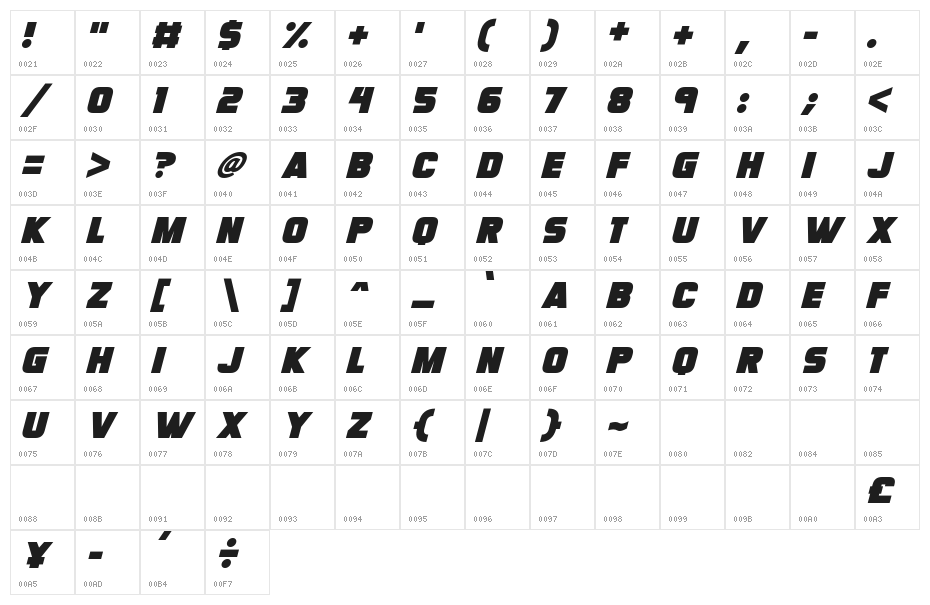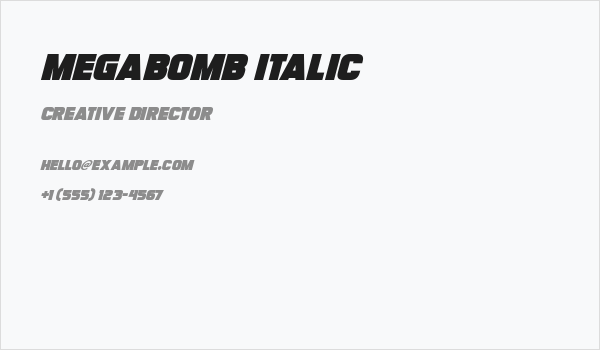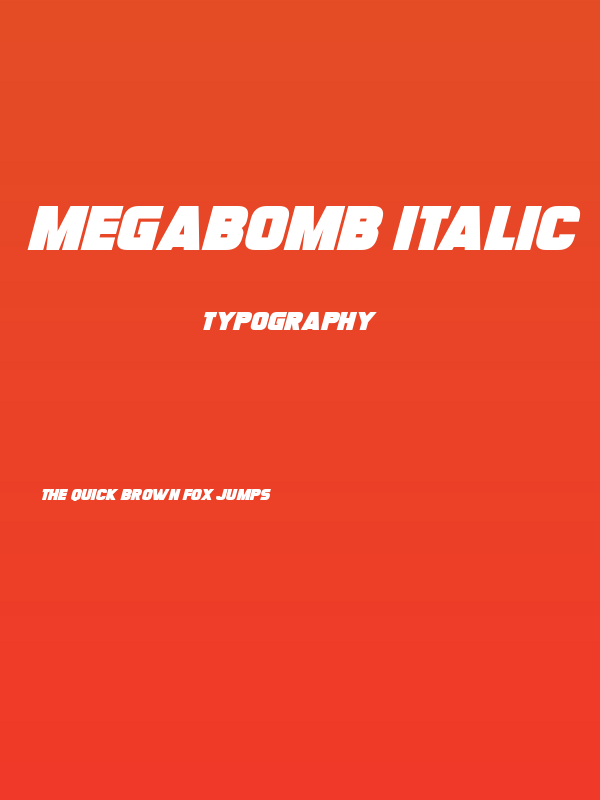
Megabomb Italic Font
Megabomb Italic Description
This font features a bold and dynamic style with a strong italic slant, giving it a sense of motion and energy. The characters are thick and robust, with a slightly condensed width that enhances their impactful appearance. The strokes are consistent in thickness, providing a uniform and cohesive look across all characters. The uppercase and lowercase letters maintain a similar weight, ensuring readability and balance. The numerals are equally bold, matching the overall aesthetic of the alphabetic characters. Special characters are designed with the same attention to detail, making them suitable for a variety of uses.
| Proposed Projects | Ideal for sports branding, action-themed posters, dynamic advertising materials, and video game titles. |